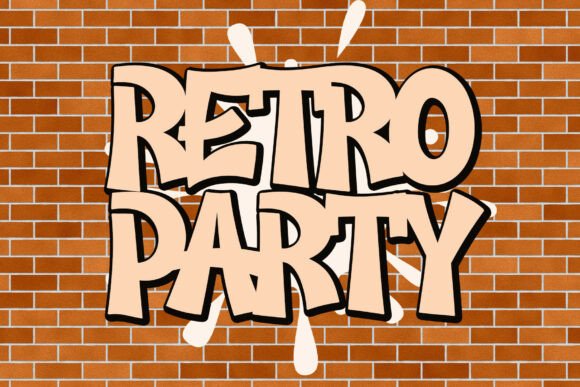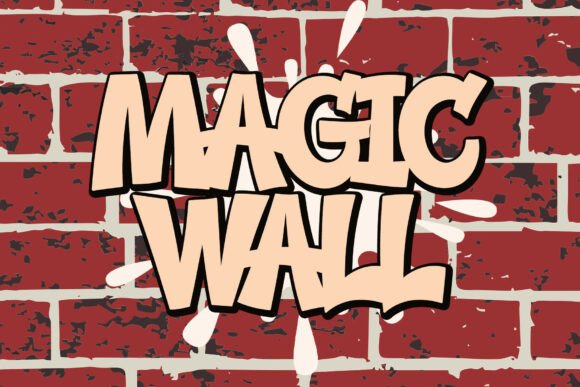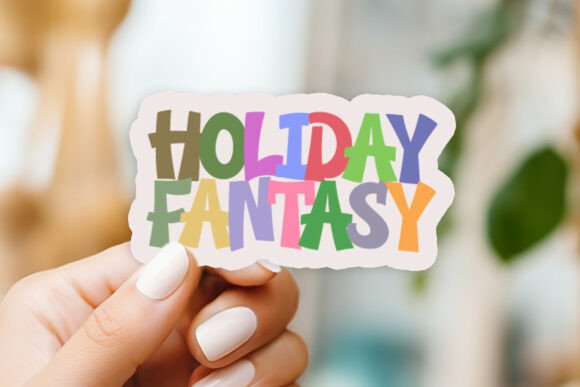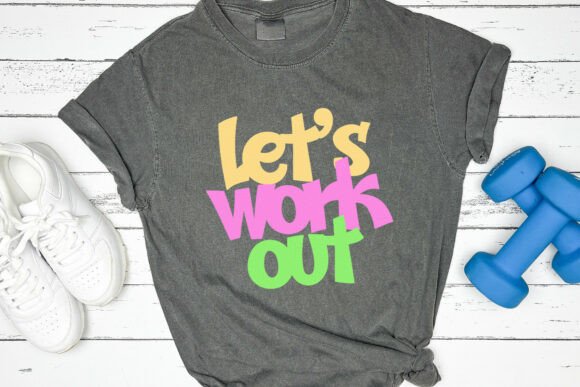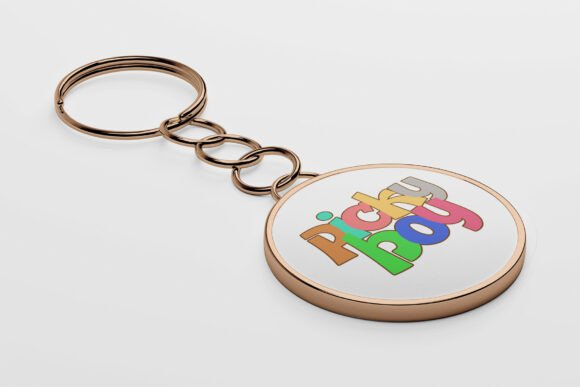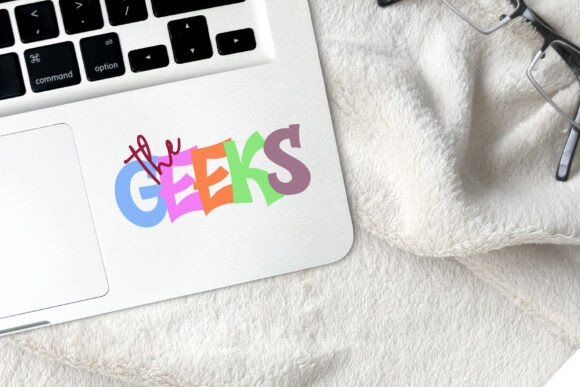
Introduction to Break Court Font
Break Court is bold and bouncy graffiti font that radiates positive energy and power.
The bold look of this font is suitable for variety types of designs, such as poster, street art design, tshirt, apparel, stickers, urban graffiti, and many more .
Key Features of Break Court Font